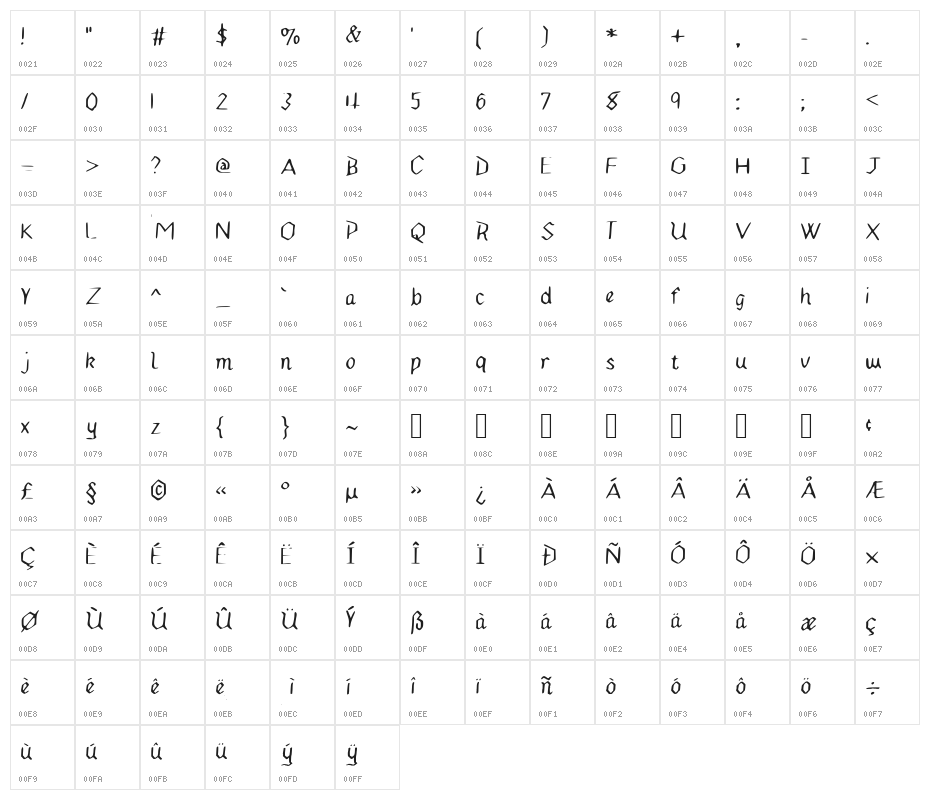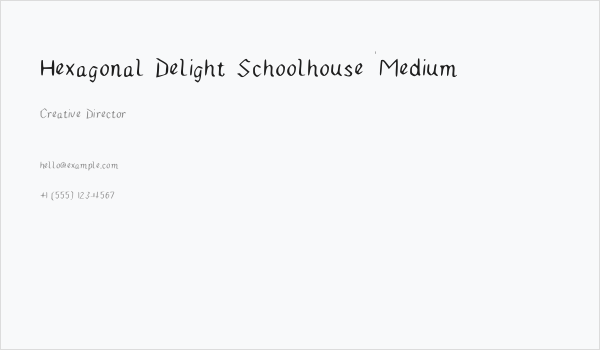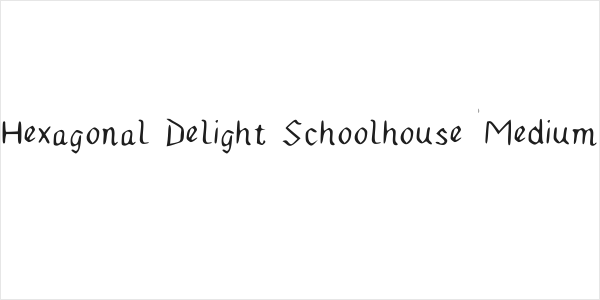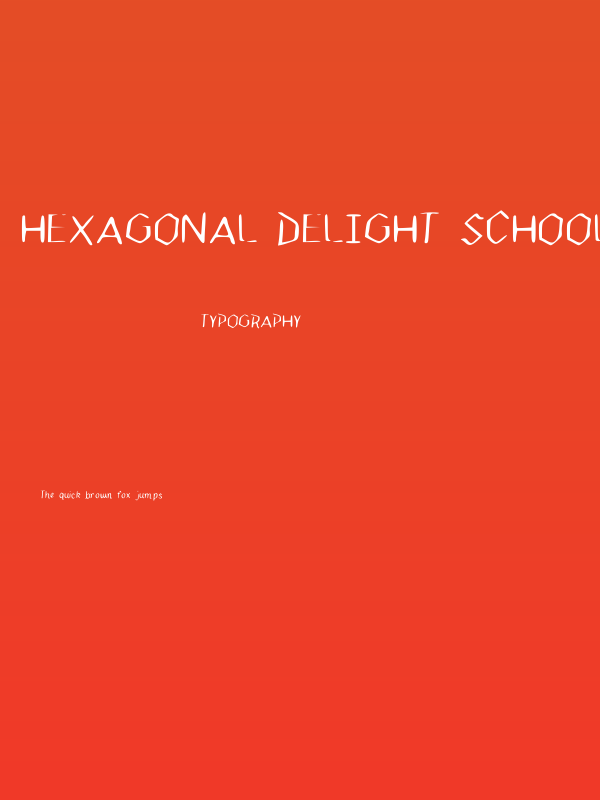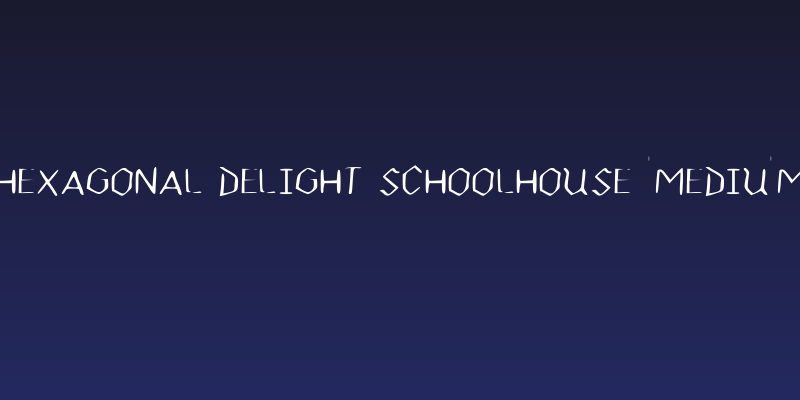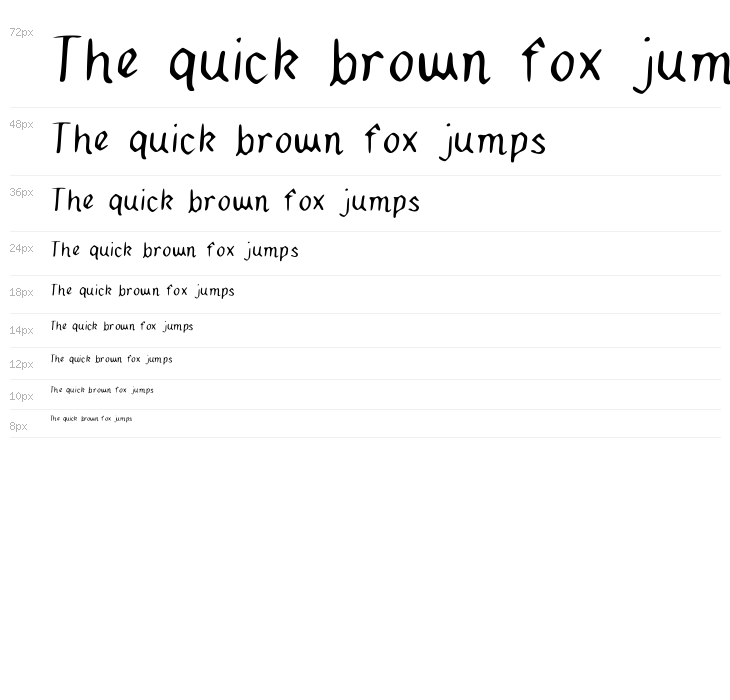
Hexagonal Delight Schoolhouse Medium Font
Hexagonal Delight Schoolhouse Medium Description
This font features a unique blend of geometric and organic elements, characterized by its hexagonal shapes and playful, schoolhouse-inspired design. The uppercase letters exhibit a distinct angularity, with sharp edges and a slightly uneven baseline, giving them a handcrafted feel. The lowercase letters maintain a consistent style, with rounded forms that contrast with the angular uppercase. Numbers and special characters follow the same design principles, ensuring a cohesive look across all glyphs. The font's medium weight provides a balanced appearance, making it suitable for various design applications. Its quirky and informal style adds a touch of whimsy, perfect for projects that require a fun and approachable aesthetic.
| Overall Style | Playful, Handcrafted |
| Proposed Projects | Ideal for children's books, educational materials, playful branding, and creative posters. |